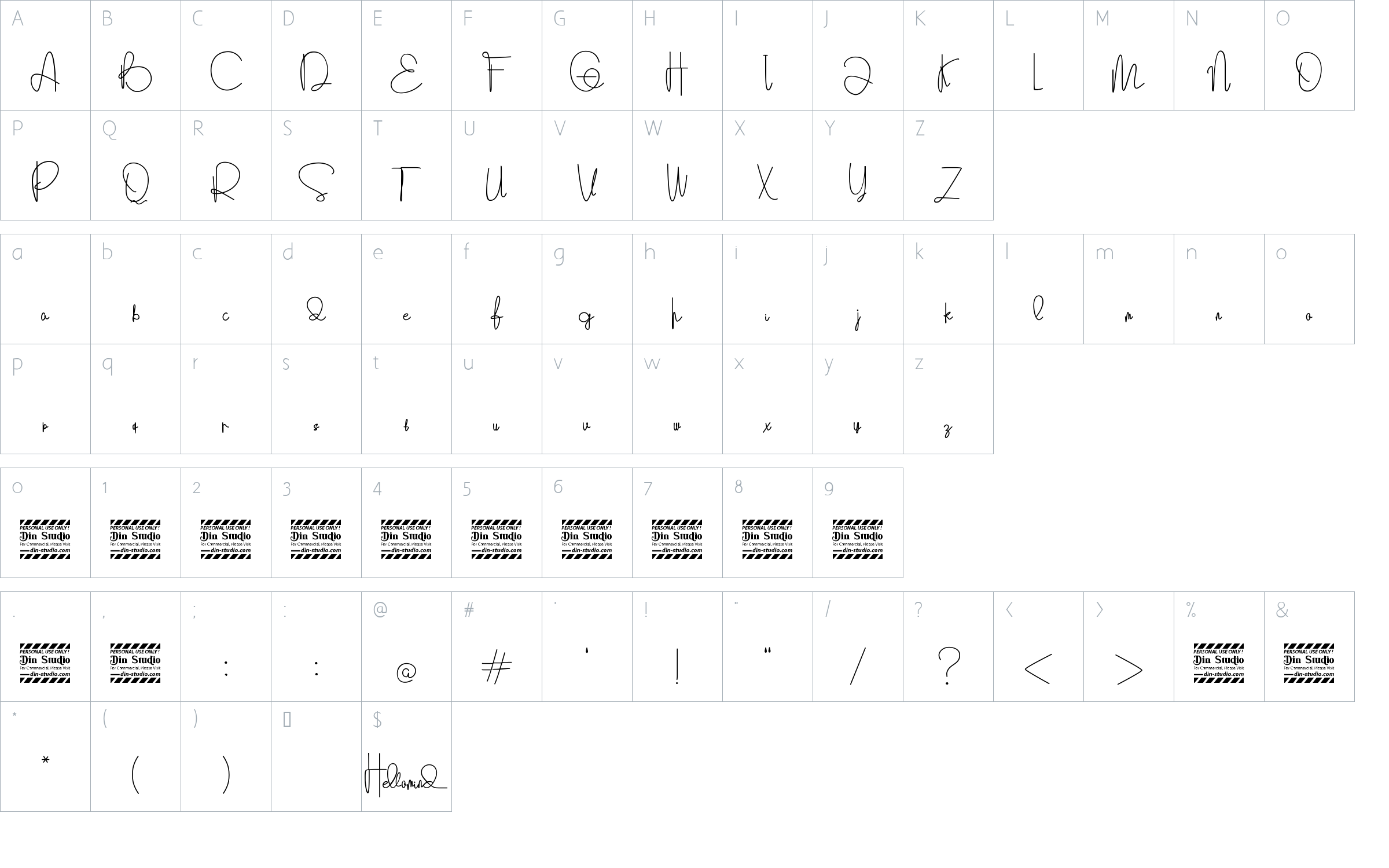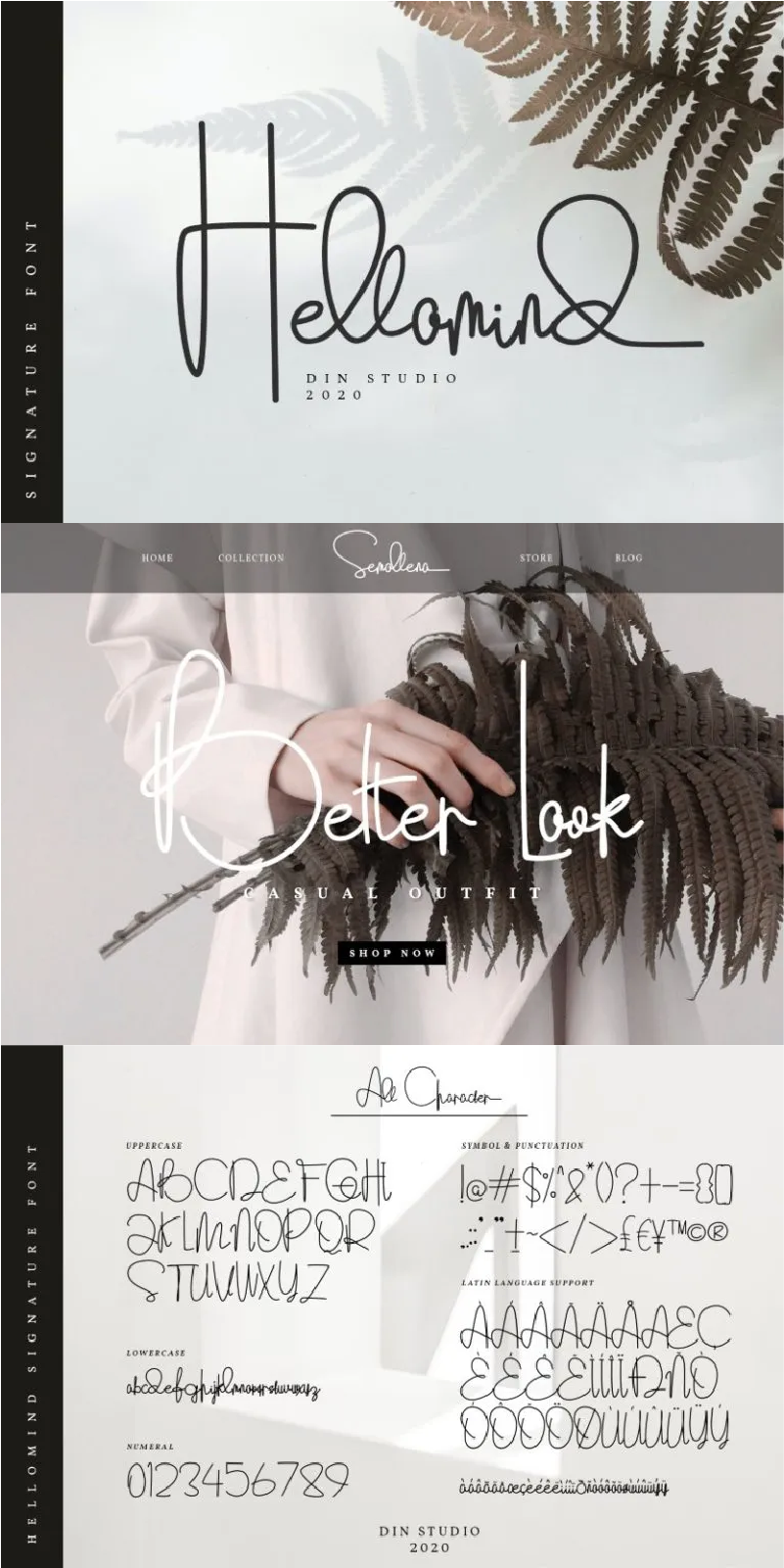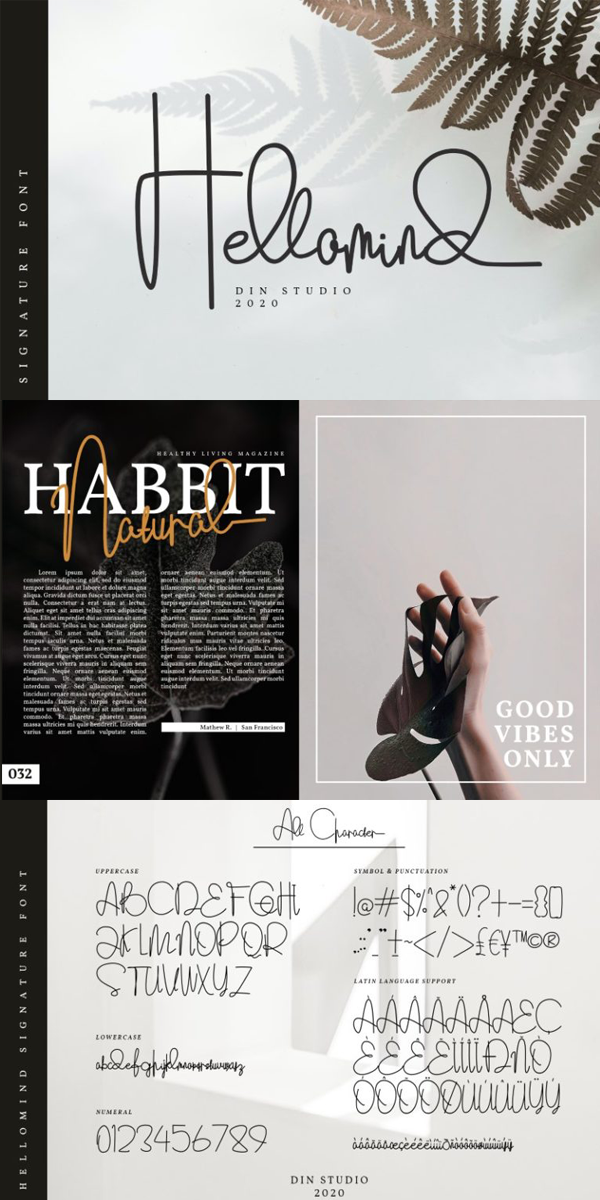
Hellomind Font
About Hellomind
Hellomind is a beautiful signature font. It brings a modern and attractive typeface. Made for any professional project branding. It is the best for logos, branding, wedding and quotes. See the previews above to get some inspiration on how you can use them. Happy Designing!
– Stylistic Set
– Beautiful Ligatures